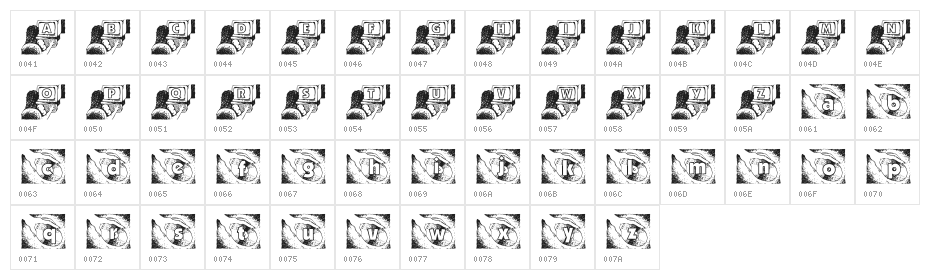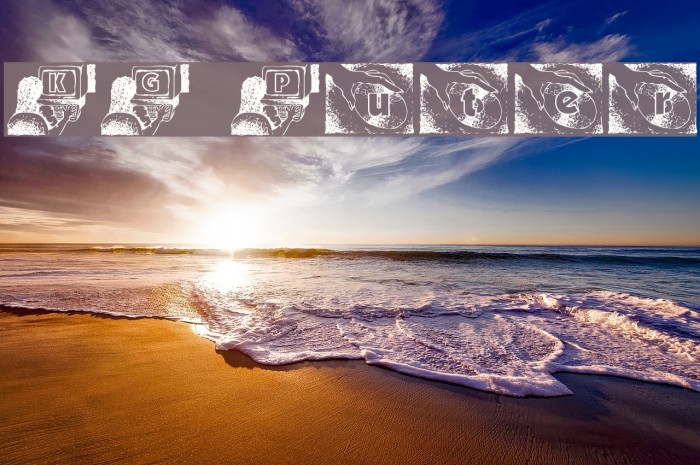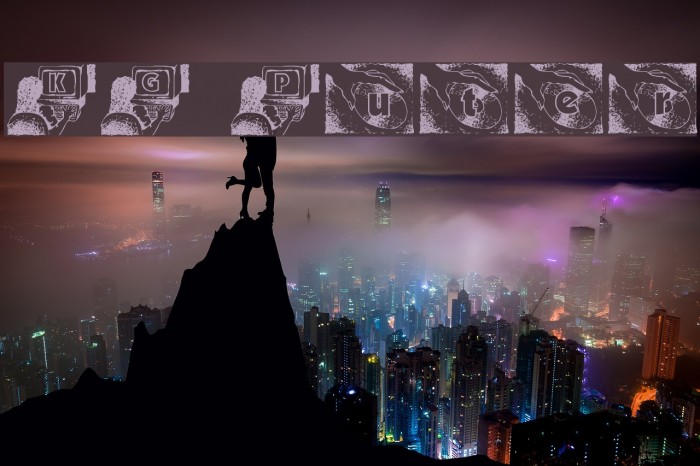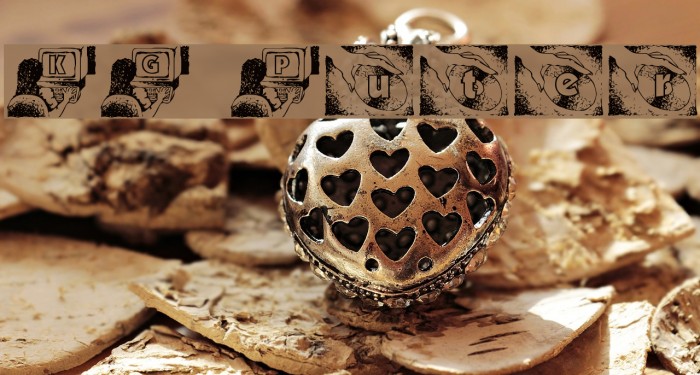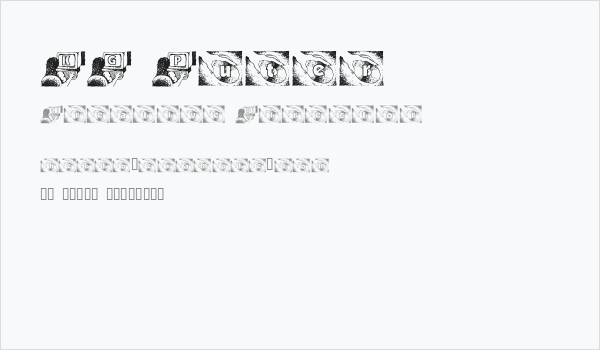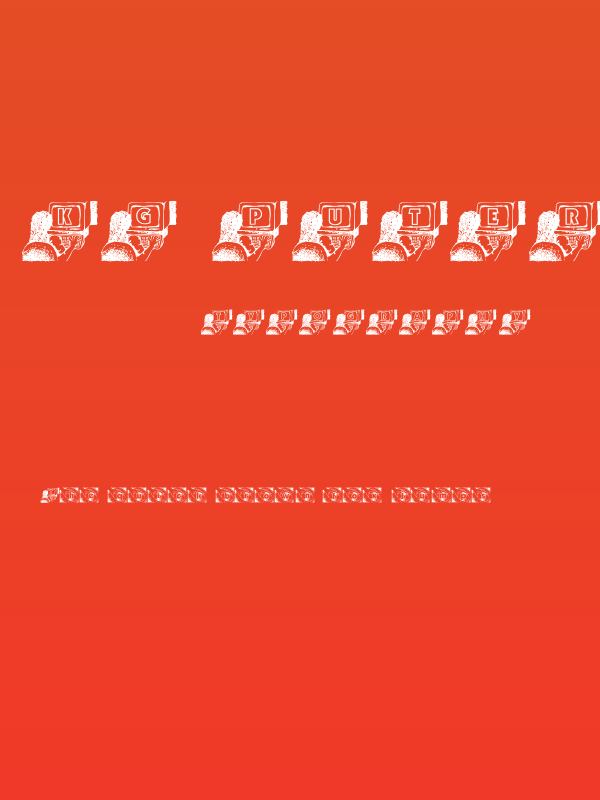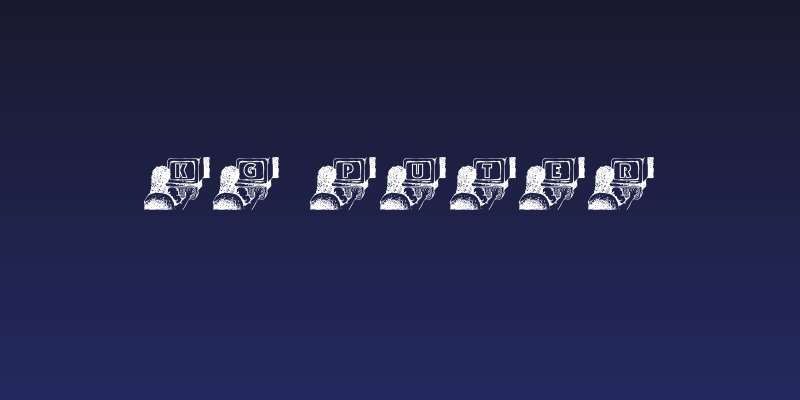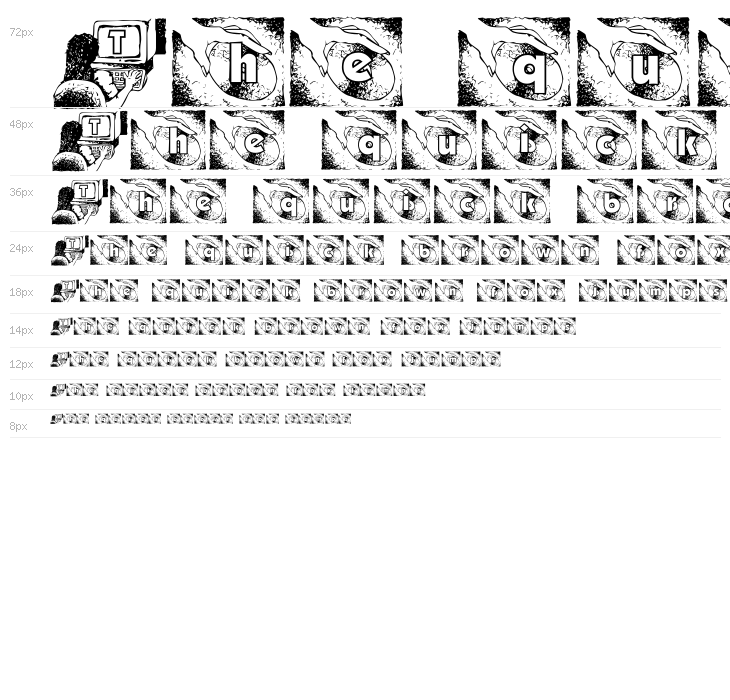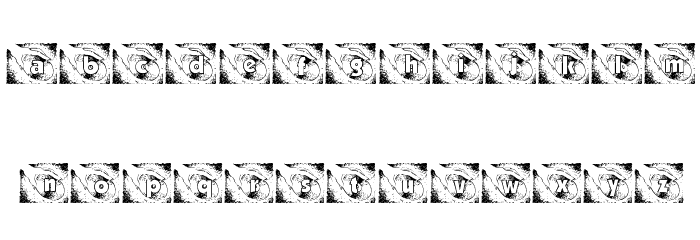
KG Puter Font
KG Puter Description
This font features a unique design where each character is enclosed within a hand-drawn, vintage-style frame. The letters themselves are bold and clear, making them stand out against the intricate background. The uppercase and lowercase letters maintain a consistent style, with the uppercase being slightly larger and more pronounced. The numbers and special characters follow the same design pattern, ensuring uniformity across all glyphs. This font's decorative nature makes it ideal for projects that require a touch of elegance and nostalgia.
| Proposed Projects | Ideal for vintage-themed posters, invitations, and branding materials that require a decorative touch. |